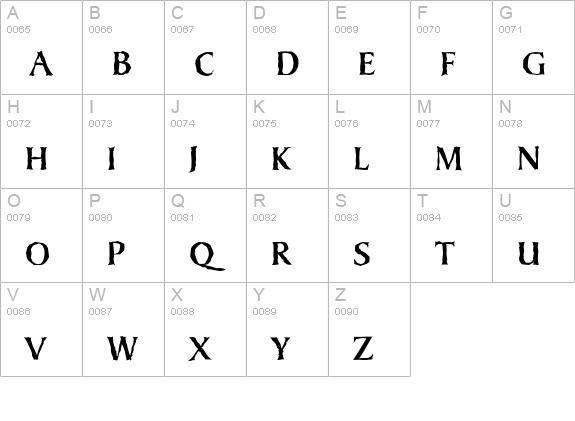
SydneyAntique-Regular is the standard, neutral variant in the SydneyAntique typeface family \xE2\x80\x94 well suited to general body text, paragraphs, and standard typographic work.
SydneyAntique-Regular is a timeless and elegant font that exudes a sense of old-world charm and sophistication. With its intricate details and classic styling, this font is perfect for adding a touch of vintage flair to your designs. The graceful curves and ornate flourishes of SydneyAntique-Regular make it ideal for projects that require a touch of nostalgia and elegance. Best of all, SydneyAntique-Regular is available for free download at FontsMarket.com. Whether you're working on a wedding invitation, a vintage-inspired poster, or a branding project that calls for a touch of retro charm, SydneyAntique-Regular is sure to add a touch of timeless beauty to your designs. Download it today and add a touch of vintage elegance to your projects.